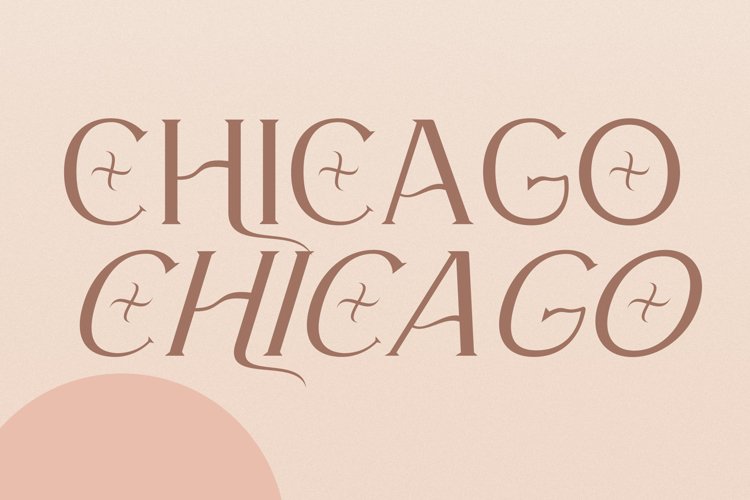
CHICAGO Font
Chicago is a lovely, stylish and delicate serif font. It is PUA encoded which means you can access all of the glyphs and swashes with ease! Add it confidently to your projects, and you will love the results.